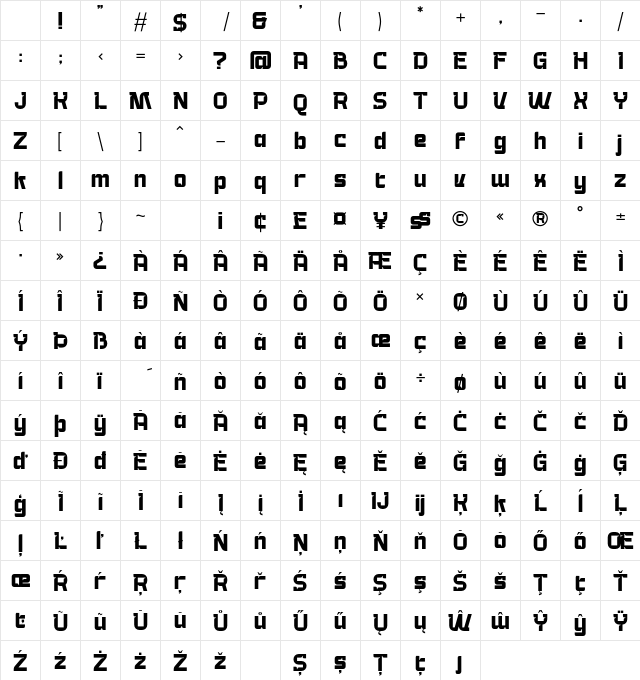
Complete Jumps Track - Demo Version Regular glyph index. Displaying only characters natively supported by Jumps Track - Demo Version Regular font.
Jumps Track - Demo Version is a composed and adaptable typeface that performs quietly and consistently across a wide range of design contexts.
Pro Tip: Use Jumps Track - Demo Version in both headline and body roles to test its range before committing to a single application.